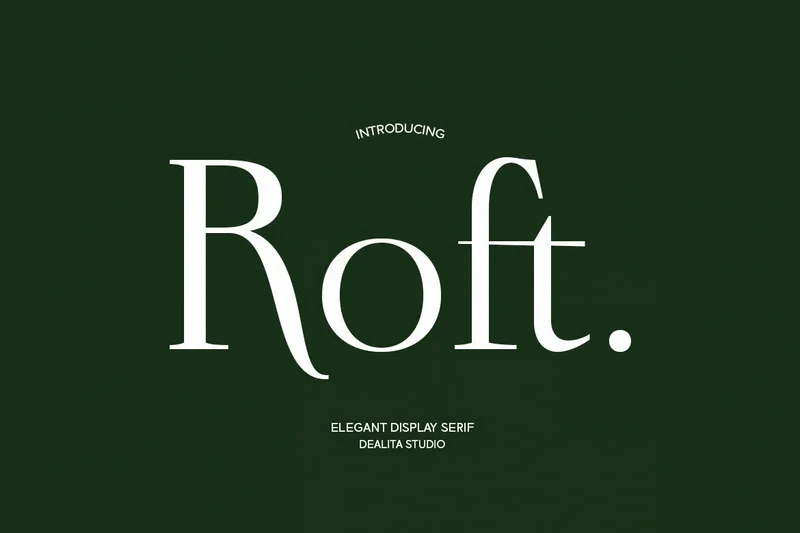
Roft Modern Serif Font
Introducing Roft, a modern serif font that embodies clean elegance and timeless style. Designed with precision and sophistication, Roft offers a perfect balance between minimalism and character, making it a versatile choice for any design project.
With its refined letterforms and graceful proportions, Roft stands out as a go-to typeface for creating clean logos, modern branding, magazine layouts, bold headlines, and product packaging. Whether you’re crafting high-end brand identities or editorial designs, Roft ensures your work radiates professionalism and elegance.
Perfect for clean logos, modern branding, magazine layouts, bold headlines, and product design, Roft will help your visuals stand out with clarity and elegance.